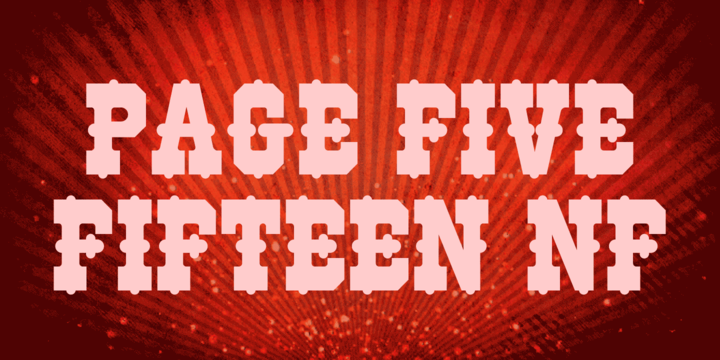
Page Five Fifteen NF
by Nick's Fonts
The Page Five Fifteen NF Font Family was designed by Nick Curtis and published by Nick's Fonts. Page Five Fifteen NF contains 1 styles. More about this family
The name says it all—another offering from the William H. Page Woodtype Company, spruced up (ouch!) and ready to dress up your next project. Both flavors of this font feature the 1252 Latin, 1250 Central European, 1254 Turkish and 1257 Baltic character sets.
Designers: Nick Curtis
Foundry: Nick's Fonts